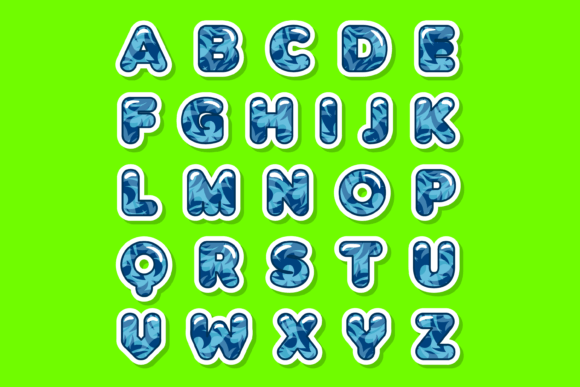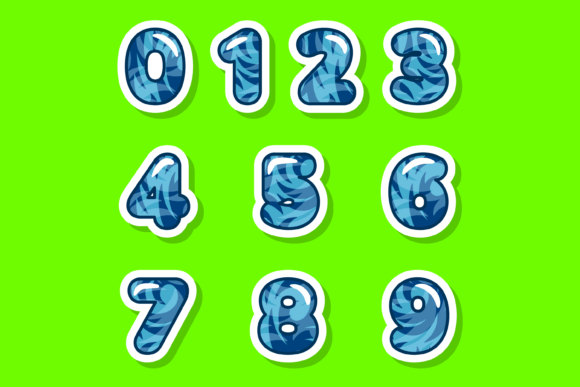
Introduction to Jungle Jive Font
Have you ever stumbled upon a design project that just screams for a pop of color and a dash of tropical flair? That’s exactly where the Jungle Jive Font comes in – a vibrant, fun, and playful color font that’s perfect for adding that extra oomph to your creative project.
With its transparent background and compatibility with popular design software like PhotoShop and Illustrator, the Jungle Jive Font is a valuable asset for any designer looking to add some visual interest to their work. Whether you’re working on a custom design or a DIY craft, this font is sure to bring a smile to your face and a touch of tropical magic to your creations.
Key Features of Jungle Jive Font
- High-quality design resource ideal for creative projects, offering a unique and playful touch.
- Comes with a transparent background, allowing for seamless integration into various design backgrounds.
- Features a bold and eye-catching design, perfect for use in headings, titles, and other prominent design elements.
- Perfect for use in a wide range of creative projects, from graphic design to digital art and beyond.
Honest Review: Jungle Jive Font
I recently had the opportunity to work with the Jungle Jive Font, and I must say it’s been a great addition to my design resource arsenal. One of the things that stood out to me is the high quality of the font, which ✨ really shines through in creative projects.
Here are some of the key features I’ve observed:
- High quality, professional-looking design
- Works well for creative projects, especially those with a fun or playful tone
Tips for Getting the Most Out of Jungle Jive Font
For optimal results, use the Jungle Jive Font on a transparent background to ensure the design stands out. Experiment with different font sizes and colors to create visual interest. Additionally, consider pairing the Jungle Jive Font with other high-quality fonts to create a cohesive design.
The Jungle Jive Font is ideal for various creative projects, including logos, posters, and social media graphics. Its unique characteristics make it a popular choice for designers looking to add a touch of whimsy to their designs. With a free download available, it’s an accessible design resource for designers of all levels.